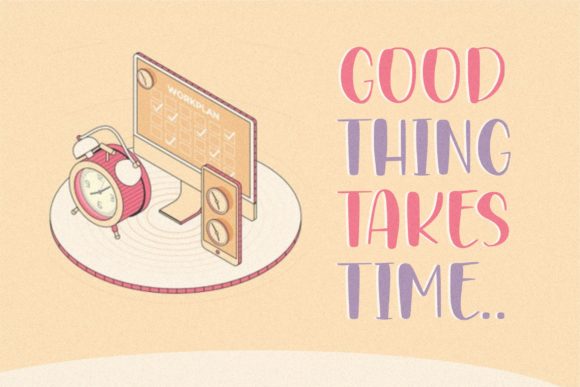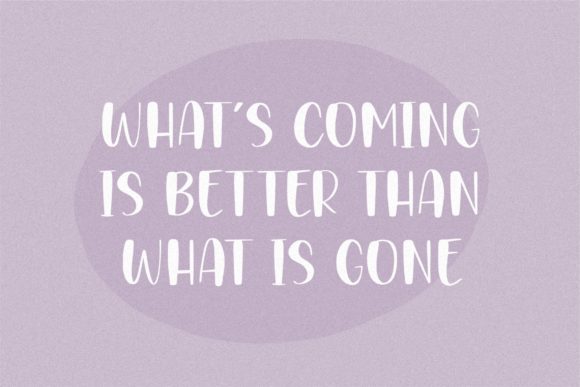
Babycakes Font
db-ku.com - Script & Handwritten -- Babycakes is a cute and fun display font. It embodies playfulness and authenticity and is the perfect choice for any children activity or school project. Add this chunky lettered font to your designs and notice how it makes them come alive!